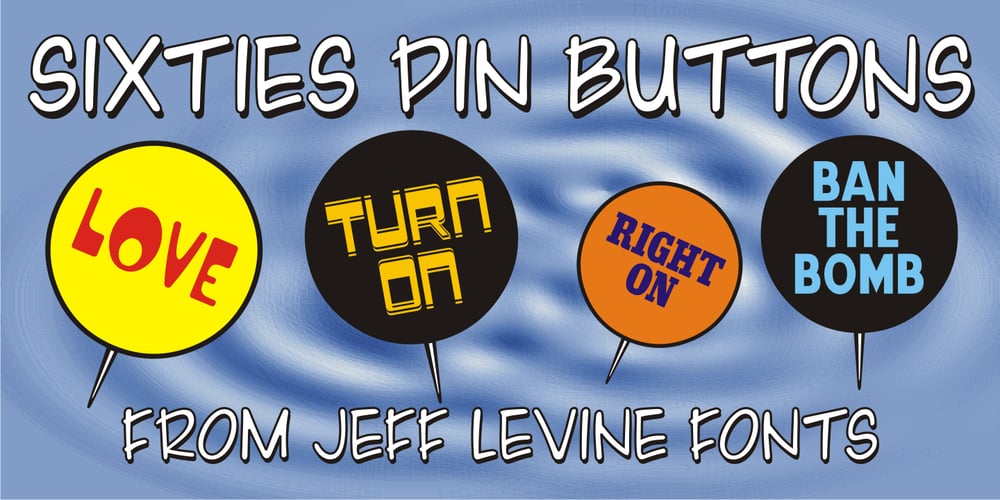
Sixties Pin Buttons JNL
Sixties Pin Buttons JNL font
Sixties Pin Buttons JNL Font Family was designed by Jeff Levine and published by Jeff Levine. Sixties Pin Buttons JNL contains 1 styles and family package options. During the turbulent era of the 1960s, the youth of America found various ways to protest against “The Establishment”. Whether it was campus unrest, protest songs, sit-ins or other methods, the message was the counter-culture movement. Arising from this disenchantment with traditional social standards, a small but effective means of protest arose that made no sound, yet spoke volumes – the pin button. Statements against the war in Vietnam, free love, drug use and other messages popped up on little metal discs pinned to tee shirts, suspenders, head band and hats. Sixties Pin Buttons JNL recreates twenty-six of these messages in both white on black (upper case keys) and black on white (lower case keys). Blank buttons in both white and black are found on the parenthesis keys.